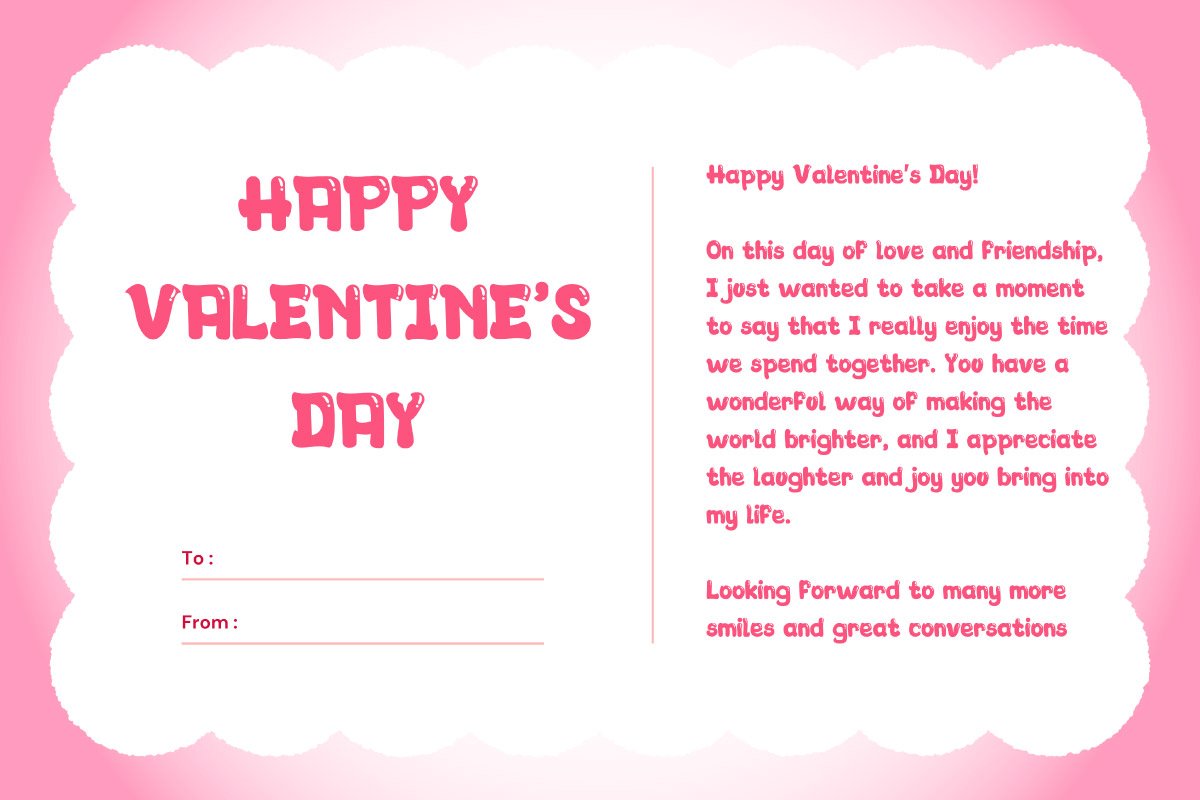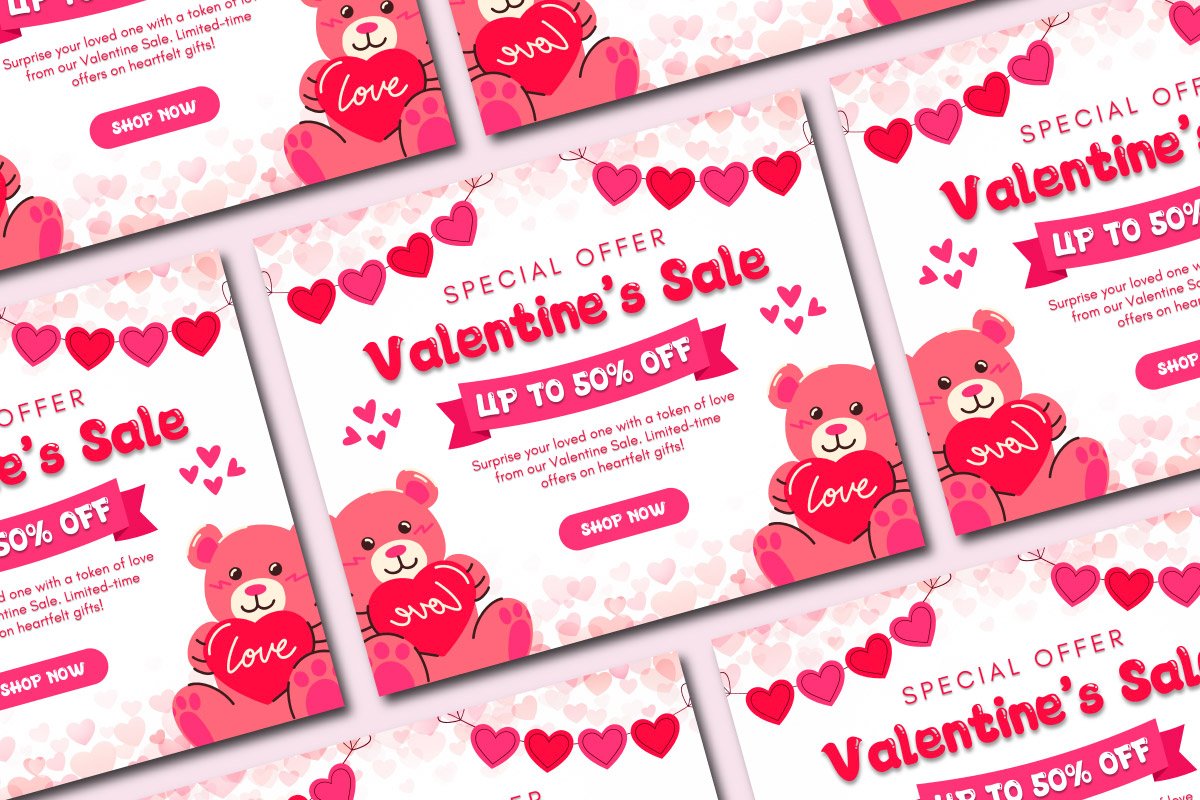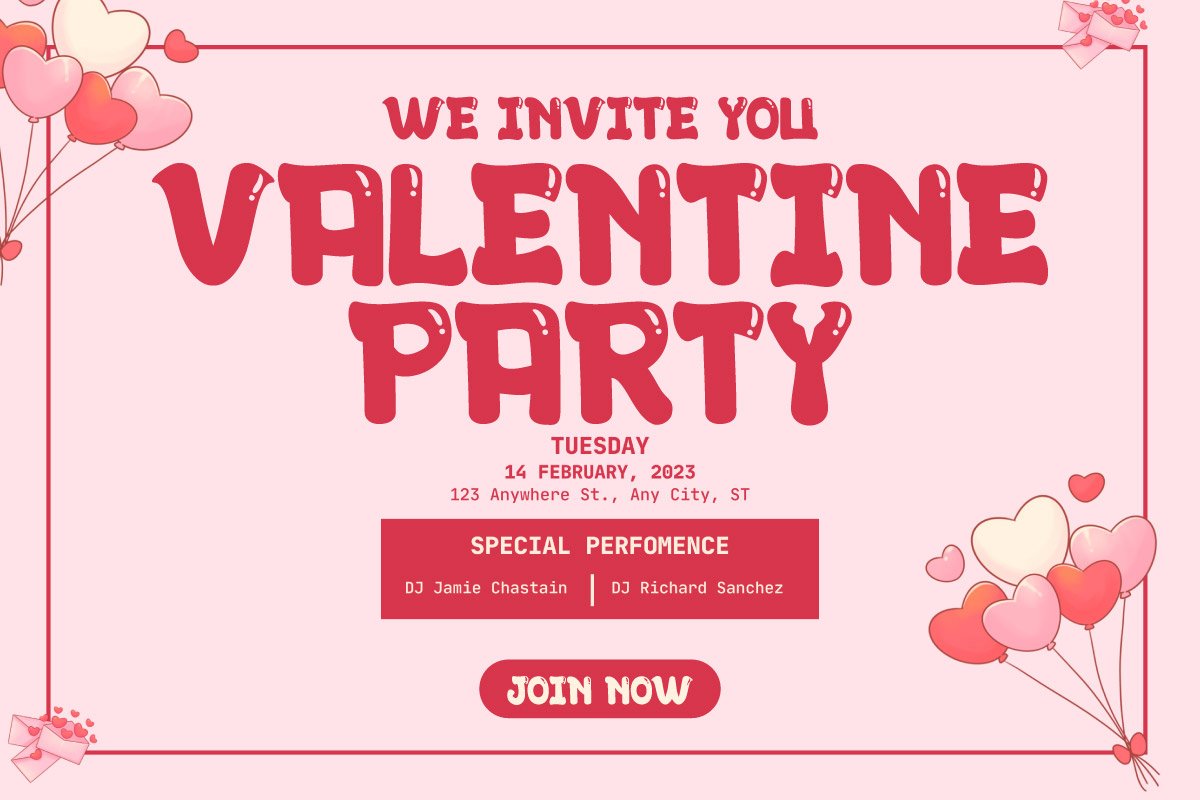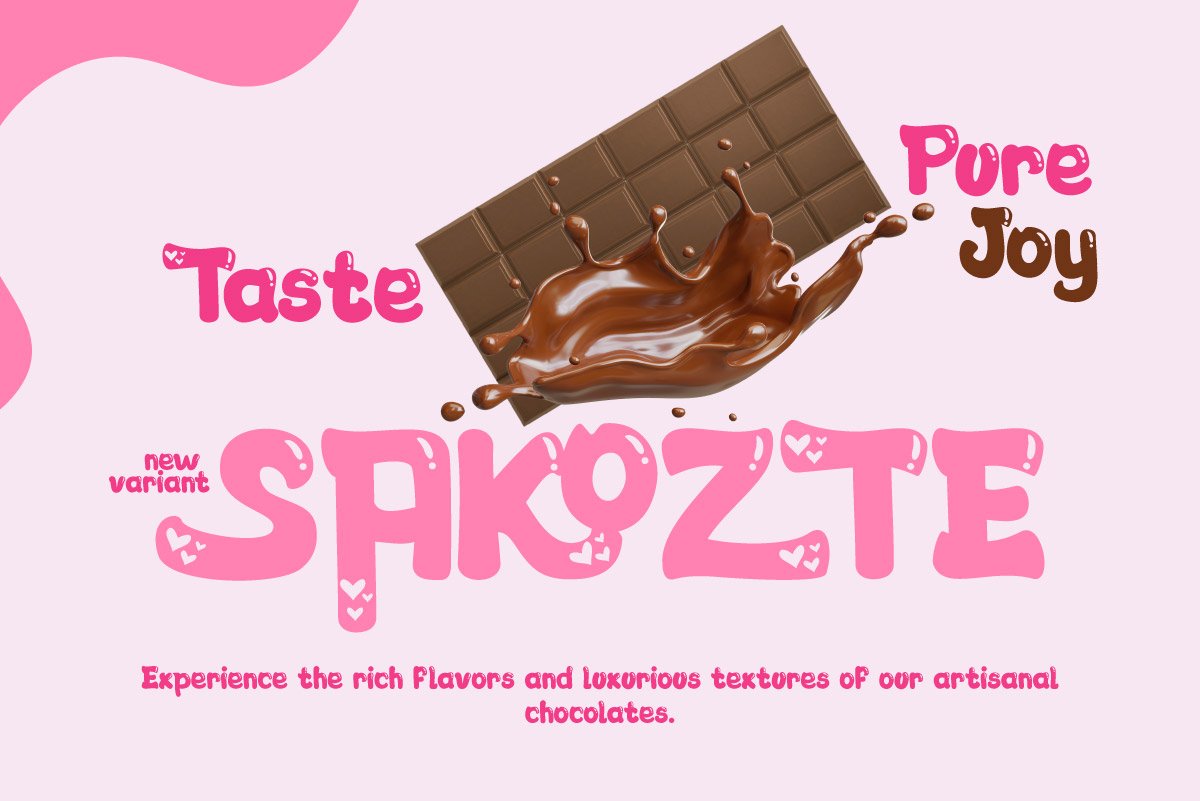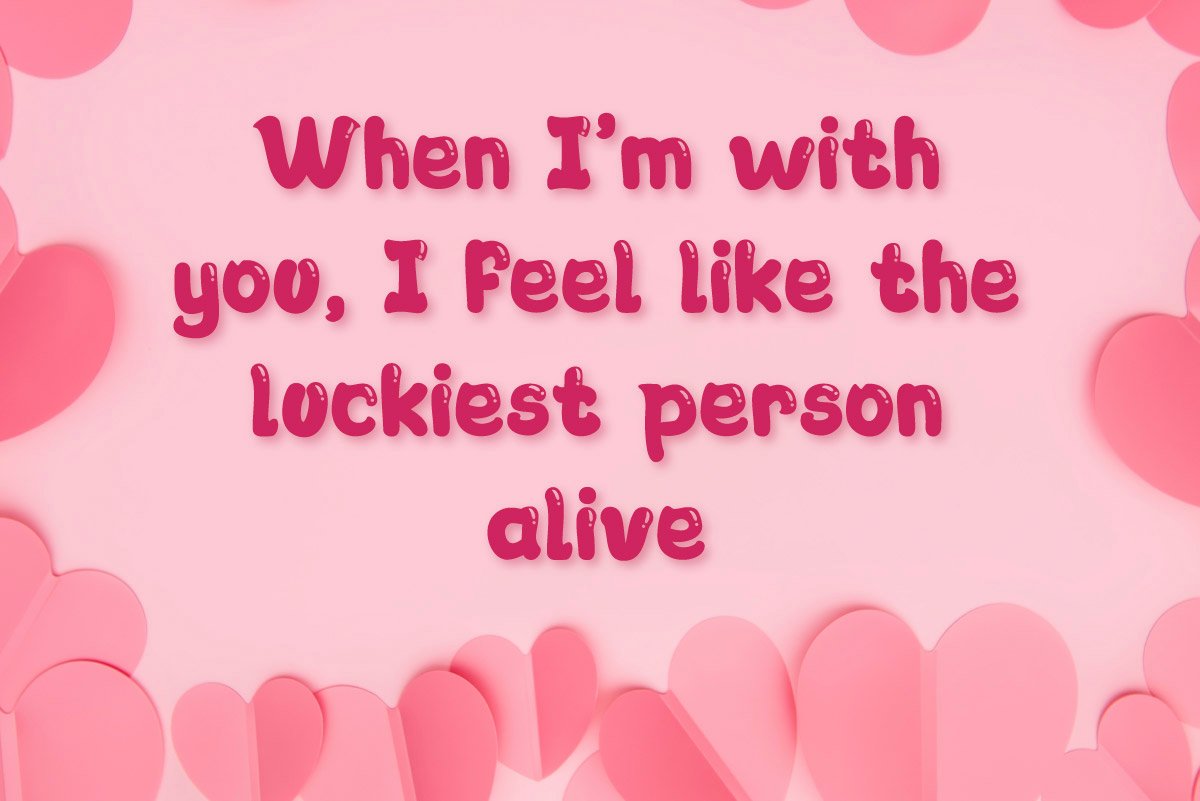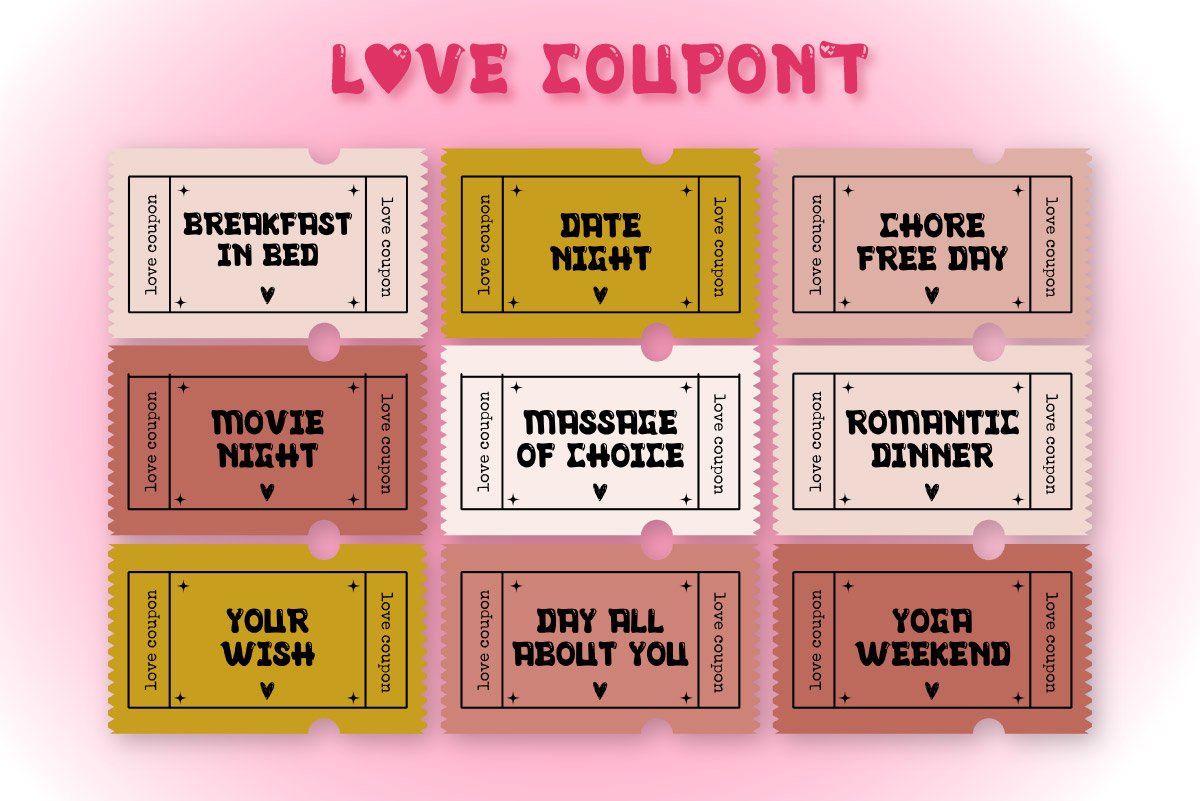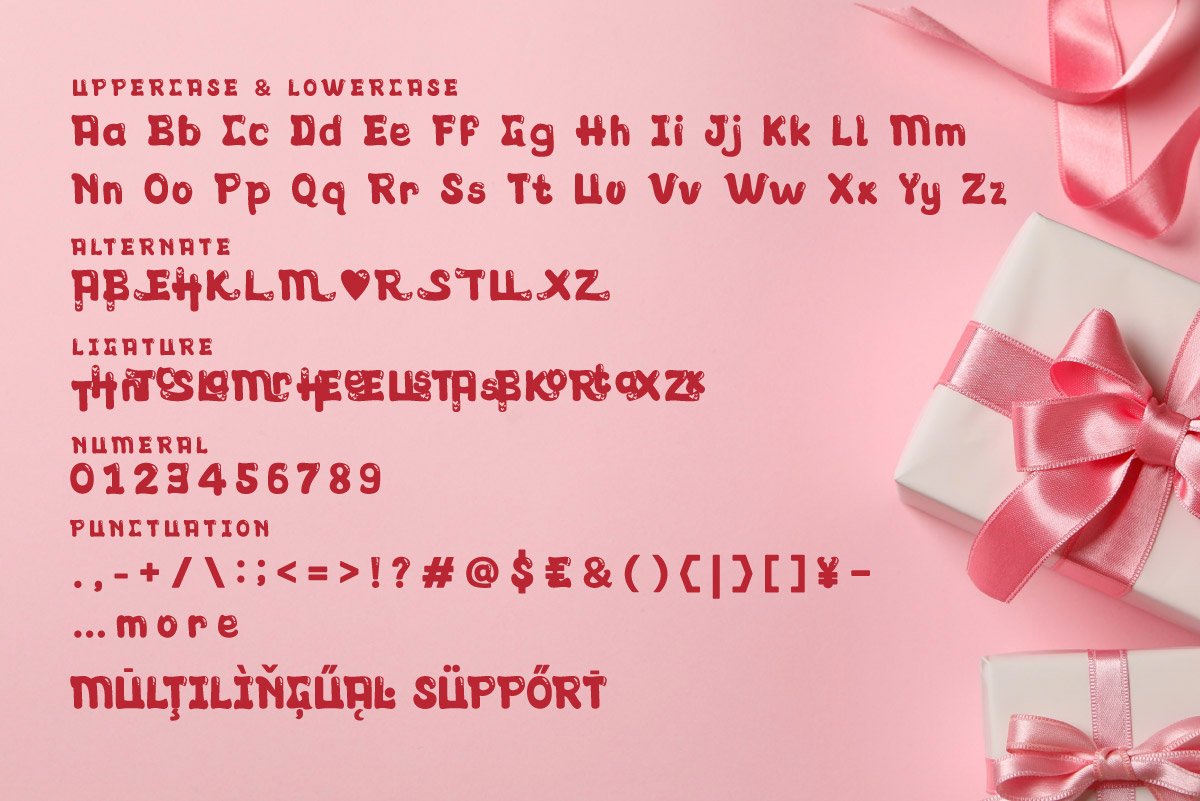
5. JOYI – Fun & Playful Valentine Font
JOYI – Fun & Playful Valentine Font
JOYI is a fun and delightful font created for Valentine’s Day projects, love-themed branding, greeting cards, and romantic packaging. Its bold yet soft strokes make it stand out while maintaining a friendly and approachable style. Perfect for designers looking to craft charming invitations, special promotions, wedding stationery, or creative social media posts. This font blends playful aesthetics with modern elegance, making your designs feel loving and full of warmth.